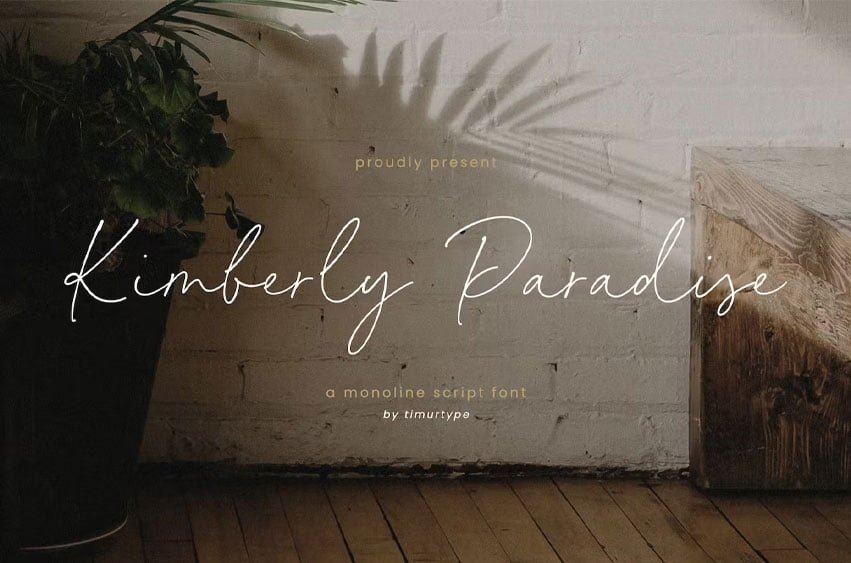
Kimberly Paradise Font is A Handwritten Script Font, which was created with great care and specially created for you.
Kimberly Paradise is perfect for product packaging, branding project, megazine, social media, wedding, or just used to express words above the background.
Kimberly Paradise Font Preview